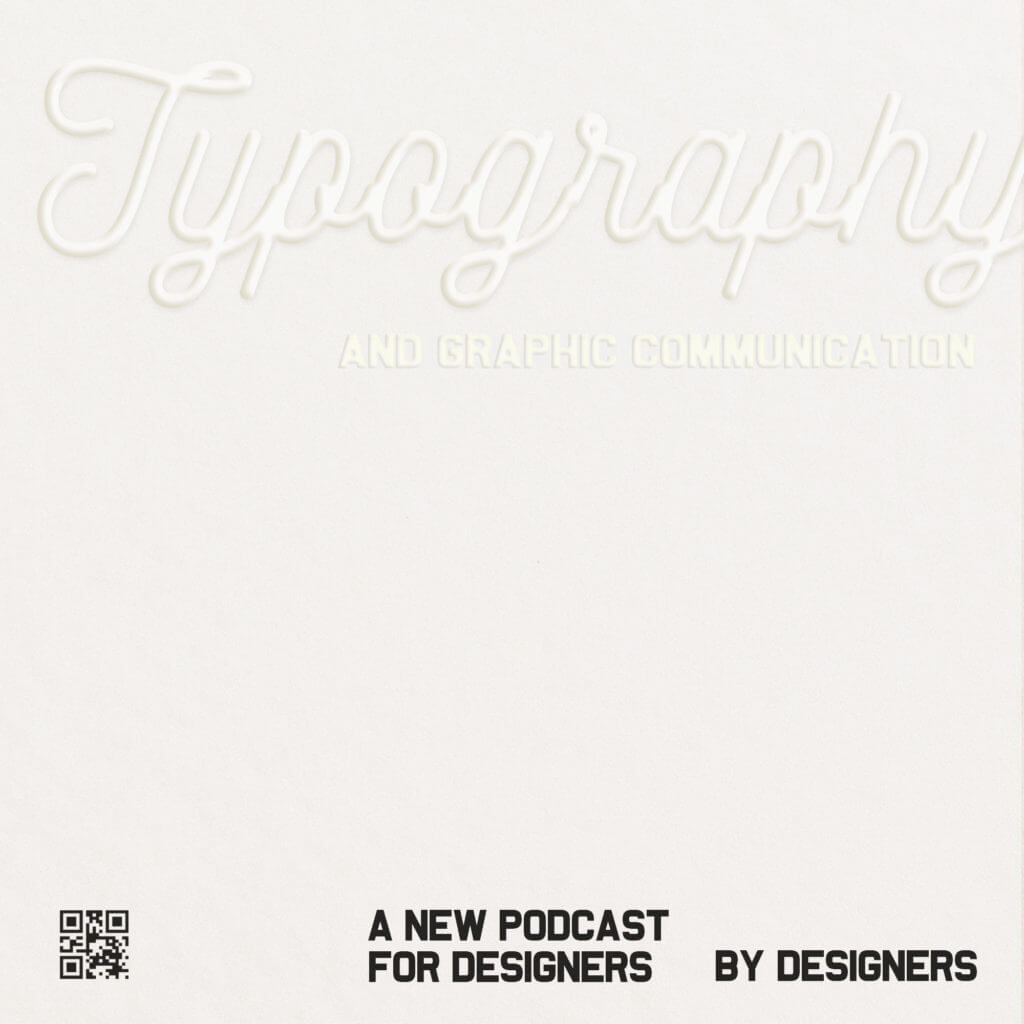
Design Ideas and Process
With a semi-comprehensive knowledge of Photoshop, I wanted to challenge myself with these podcast covers. I began by using sites like Behance, Pinterest, and Instagram to find sources of inspiration to pursue. Strangely, the posts didn’t prove useful to my designs. Instead, I was inspired by the compositions – the use of grids in the Instagram interface, the blurred buffering images, and the controlled white space influenced my three respective designs. While admittedly strange, I now had three engaging design ideas, using a variety of text and image techniques.
For the first design, using the retro PC image, I wanted to explore different filters, adding texture to the image. As a mostly unexplored tool, I began by using the magic wand, adjusting the tolerance to select the focal image, and adding a layer mask to edit just the PC.
Having added text, I experimented with filters before finding the ‘Mosaic’ Filter in the Pixelate drop-down menu. I adjusted the ‘Cell size’ slider to an appropriate amount. I added more texture using the ‘Filter Gallery’ and applying ‘Grain’, altering the contrast and intensity to suit. Although I have used this before, I hadn’t experimented with the ‘Grain Type’, another variable that changes the final output.
With the second design being relatively simple, the focus is on composition, I will discuss the more complex third design. For this, I experimented with shadows and perspective, simulating height within the text by using the ‘Bevel & Emboss’ and ‘Inner Shadow’ layer styles. I added a ‘Drop Shadow’ helping to contextualise the text with the background and amplifying the effect. Despite being initially challenging, I was able to adjust these values to make the design work harmoniously together.
Finally, I used the ‘Curves Adjustment Layer’, allowing me to refine the design’s colours. I have previously used the simpler ‘Brightness/Contrast adjustment. However, ‘Curves’ gave me more control over the exact balancing, allowing a better final outcome to be produced from this slightly more complex adjustment layer.
Software Tutorials
As previously mentioned, I had no idea how to achieve these results. Many of the features and amendments made were generated through experimentation. However, I used software tutorials to educate me on how to use specific tools which I could adapt to fit my design purpose.
I wanted to push myself for these designs, so I decided to start with a reputable tutorial. I began with a video by Adobe Creative Cloud, going through the filters and effects in Photoshop. While many of these weren’t really useful for my concepts or project, it was still good to expand my knowledge of the software. However, some aspects, such as the meticulous look at the various filtering options, were incredibly useful, with Paul
Trani talks through what each option does and how it can be amended to suit a project. For my work, this was essential to the final outcome; the use of pixelation on the image made it more visually interesting and the additional grain made the design seem more complete and brought the design together.
Being originally lost on how to make the text for this third design pop and stand out, I began searching for tutorials that could give my work direction (and maybe teach me more about using text). Looking on YouTube for specific tips and tricks, I found a video by the channel Facilito, which showed how to use text settings to create a 3D look to the text. This tutorial was incredibly helpful, talking through the different tools used to create this effect. Knowing this, I was then able to go back through and edit these to be appropriate for my design. I enjoyed this element of experimentation, with the tutorial not providing all the answers so I could still work creatively to find the best fit for my piece.
Design Resources and Articles
The Retro PC image was taken by Thomas Millot; this was something I could not source myself (as I didn’t have a Macintosh PC from the ’80s) so I used his image from Unsplash.
On top of this, I got design inspiration from other places. This included the distortion on buffering Instagram images, but the poster on the left more significantly influenced my first design. I wanted to achieve a nostalgic-but-modern, technological appearance which this image does perfectly.
The final design was inspired by existing work; an effect sold by designer, @putrasepta on Freepik. Although I obviously made the text from scratch, being able to use this similar image was helpful throughout the process, informing me on how to add colour to make the text appear 3 dimensional.
For additional assistance in this project, I read articles about podcast cover art, allowing me to have a more informed opinion on the design’s context of use. I found a recent article on Riverside called about good practices in podcast cover design (https://riverside.fm/blog/podcast-cover-art), which help educate me on the formatting and conventions of this genre.
This had some useful information, such as keeping Topic, Tone, Personality, Style, Genre in mind while designing. For me, this gave the design process more focus and direction. The technical focus on typography ties in directly with my subject matter, and other tips such as “5. Less is More” really influenced my final outcome, causing me to use large amounts of white space in my piece.
Though not every piece of advice was used within my work, such as using colour temperature (which goes against my modern, monochromatic colours), the article helped my design work greatly, giving me focus while working and an idea of the conventions of modern podcast covers. While my design was intended to be contemporary, this information helped me stay within the genre of podcast cover art.